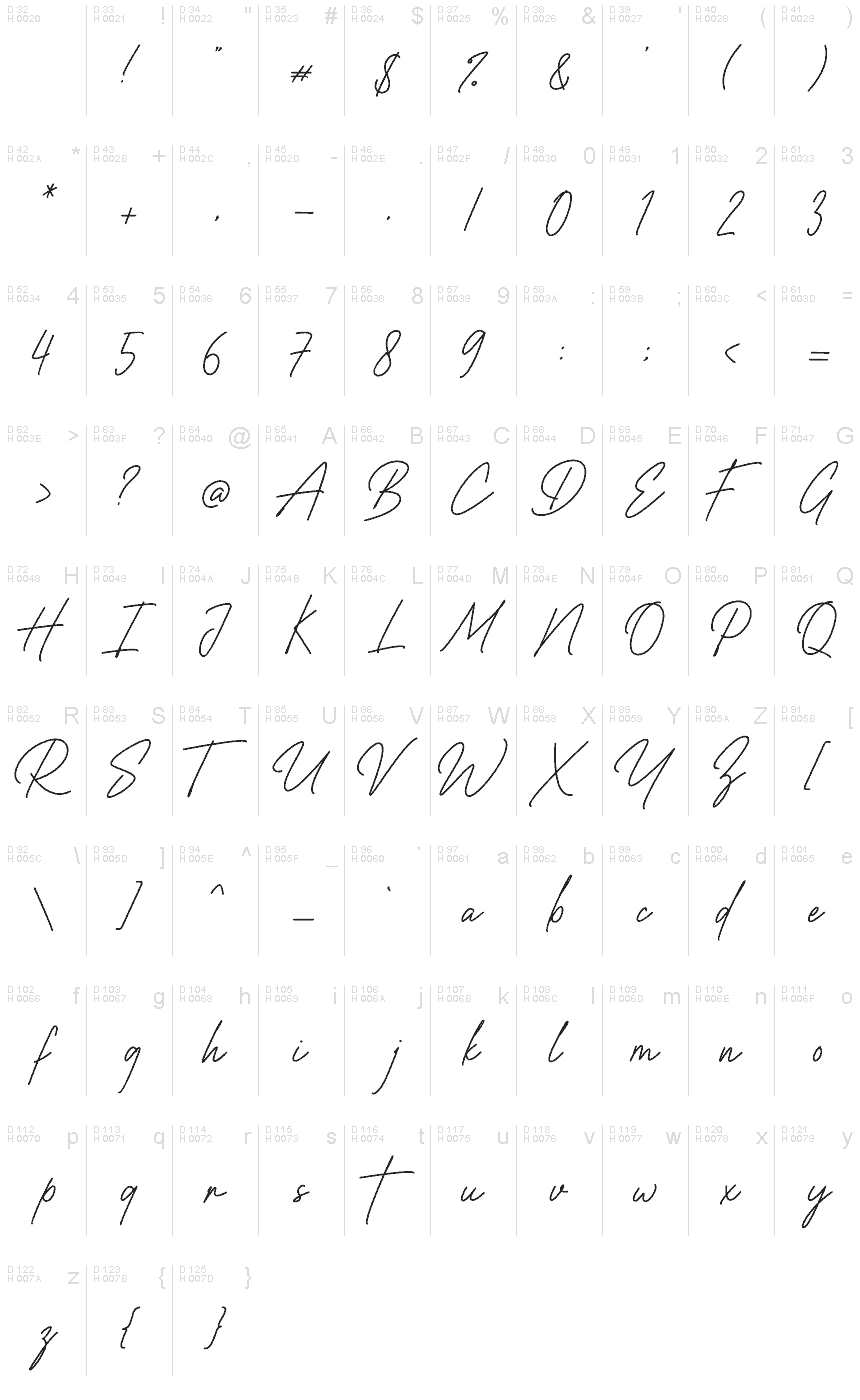
Brigitha Signature
Brigitha Signature font designed by Typeline Studio is a light handwritten font with beautifully flowing glyphs. Its elegant and modern style brings sophistication where used whether in digital designs or those destined for print. A personal touch which the font offers renders it such a unique asset to use where a deep connection with the reader matters the most.
Free to download, it is recommended for personal cards, logo design, website headers, blog posts and other creative writing projects. Brigitha Signature will make wonderful packaging and book covers for novels both classics and fiction books. Use it also in messages and social media posts or infographics that call attention from an audience.